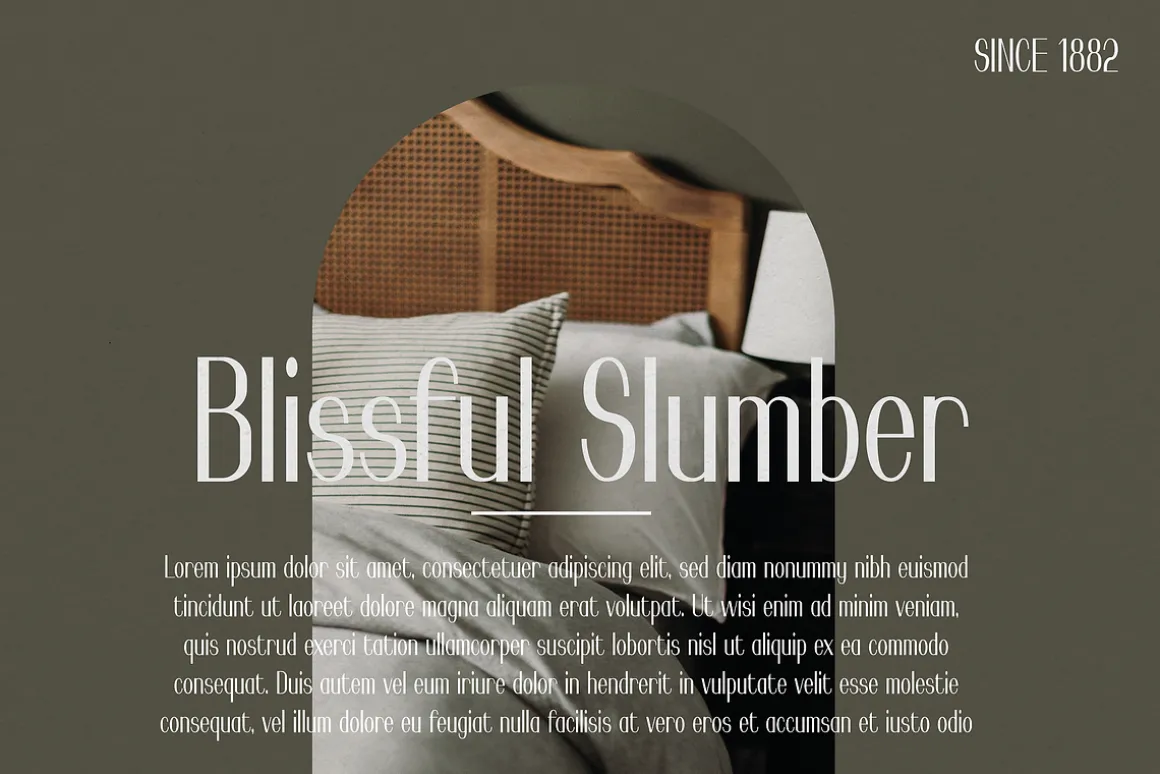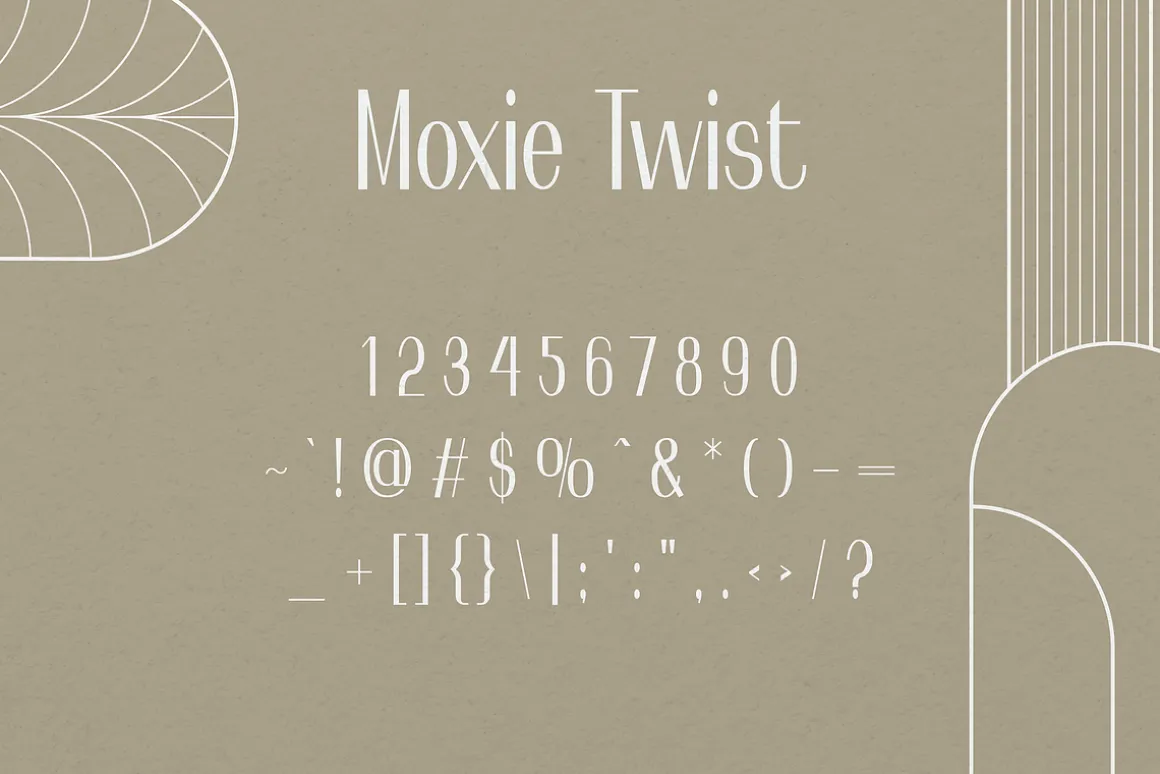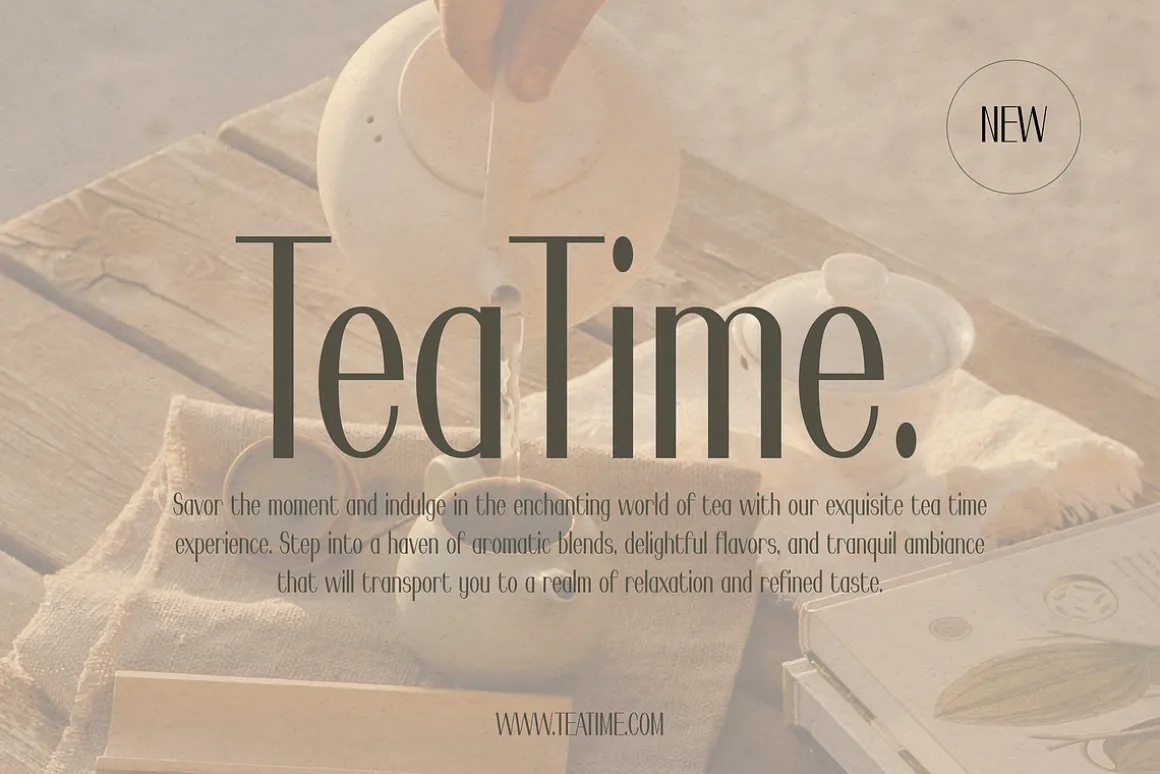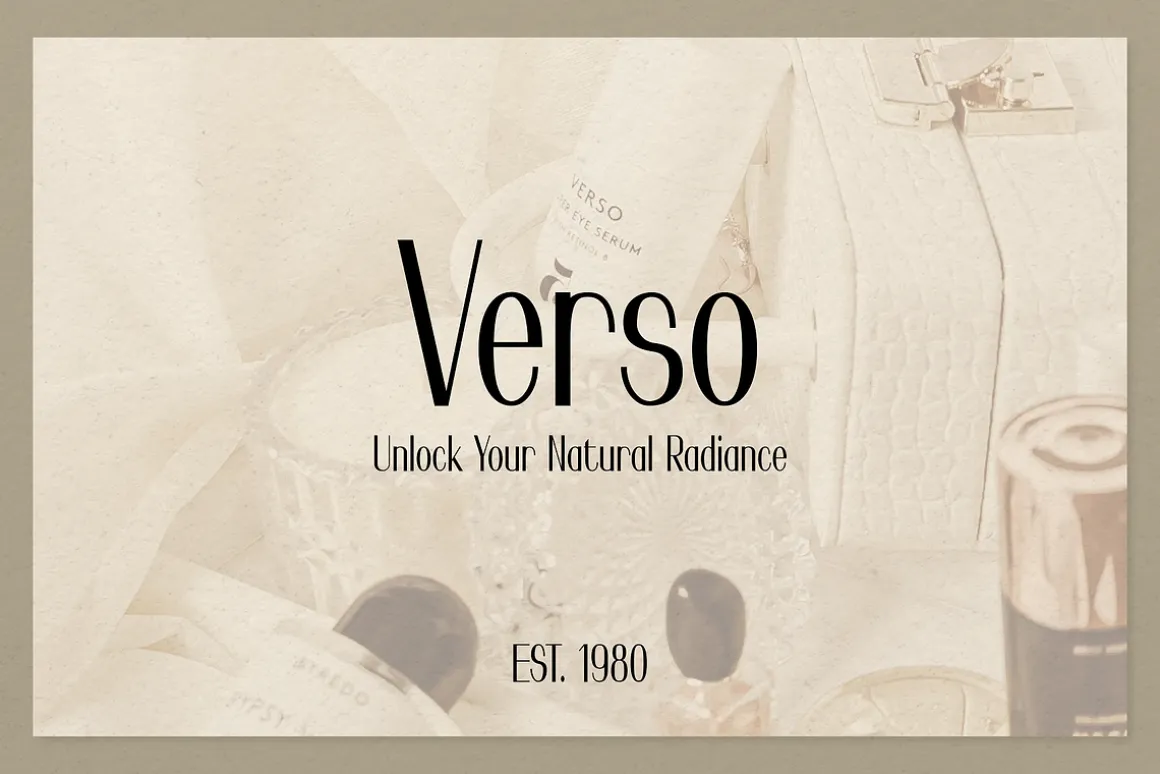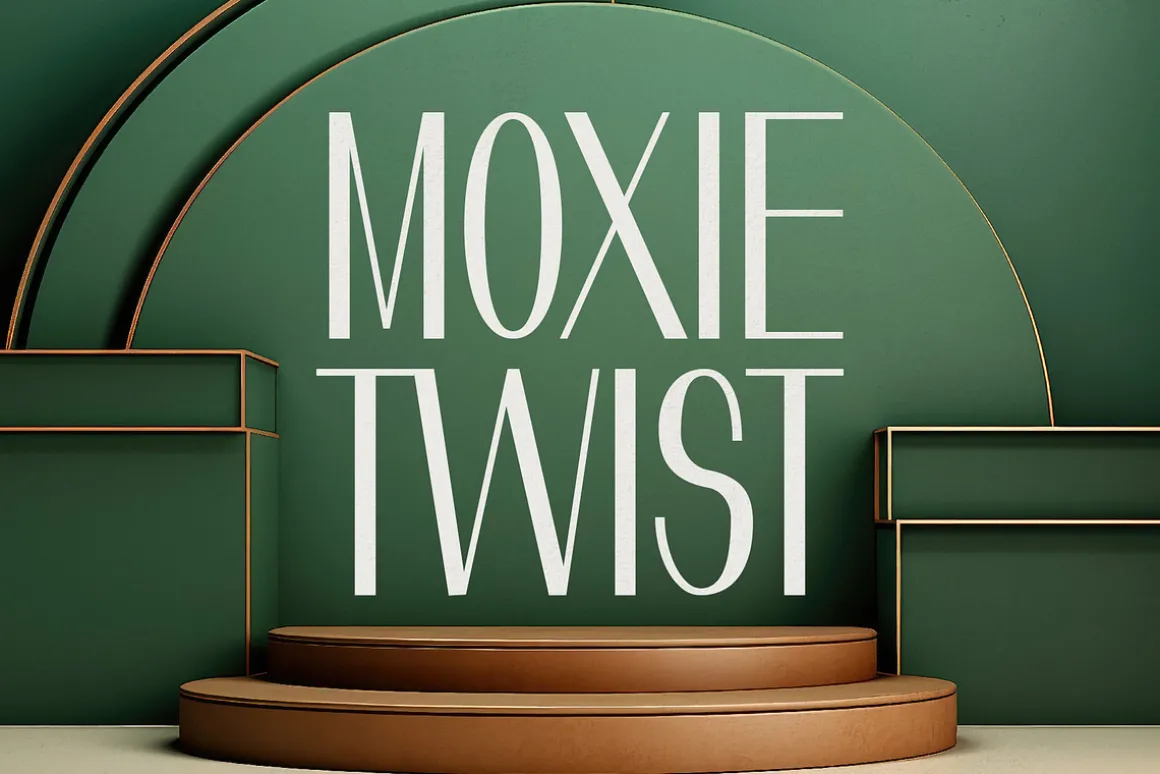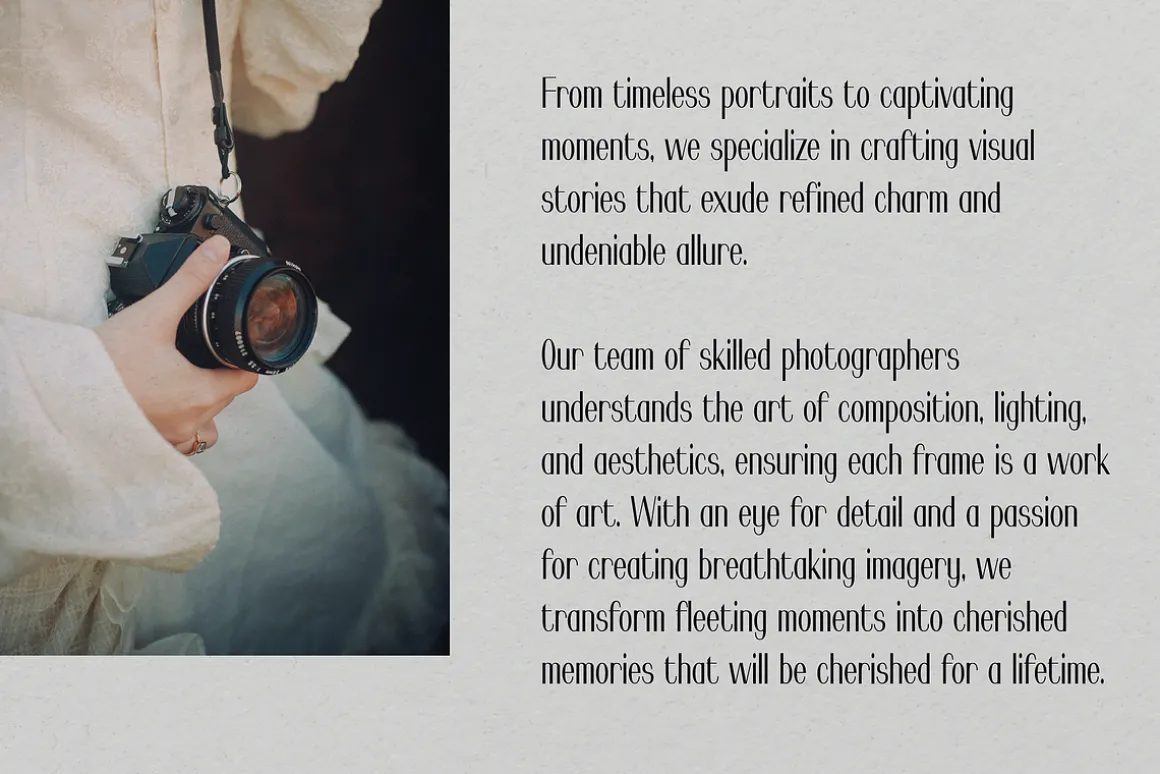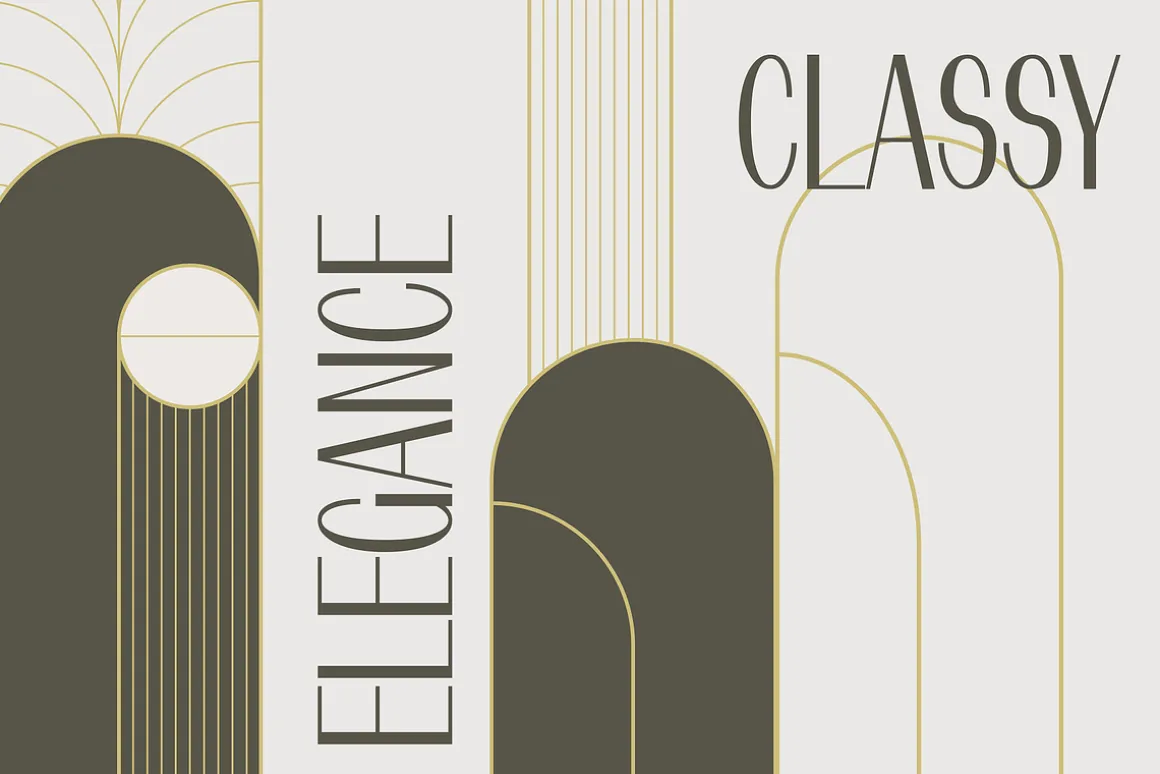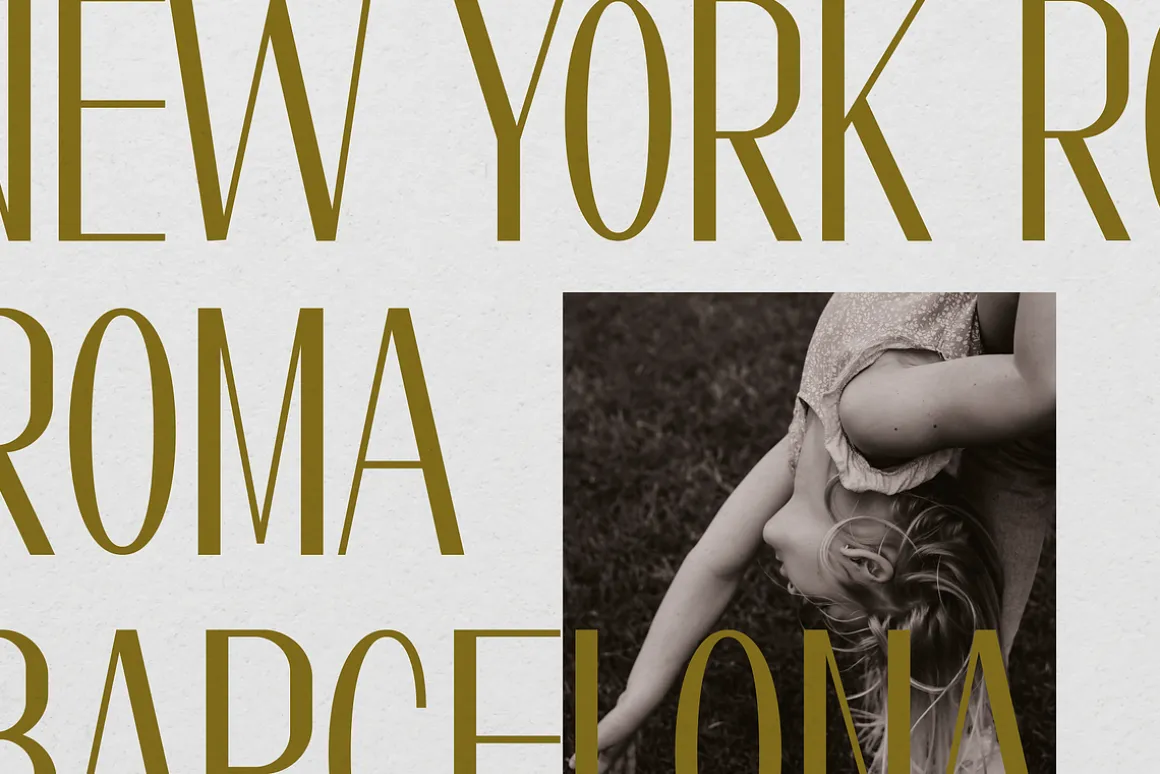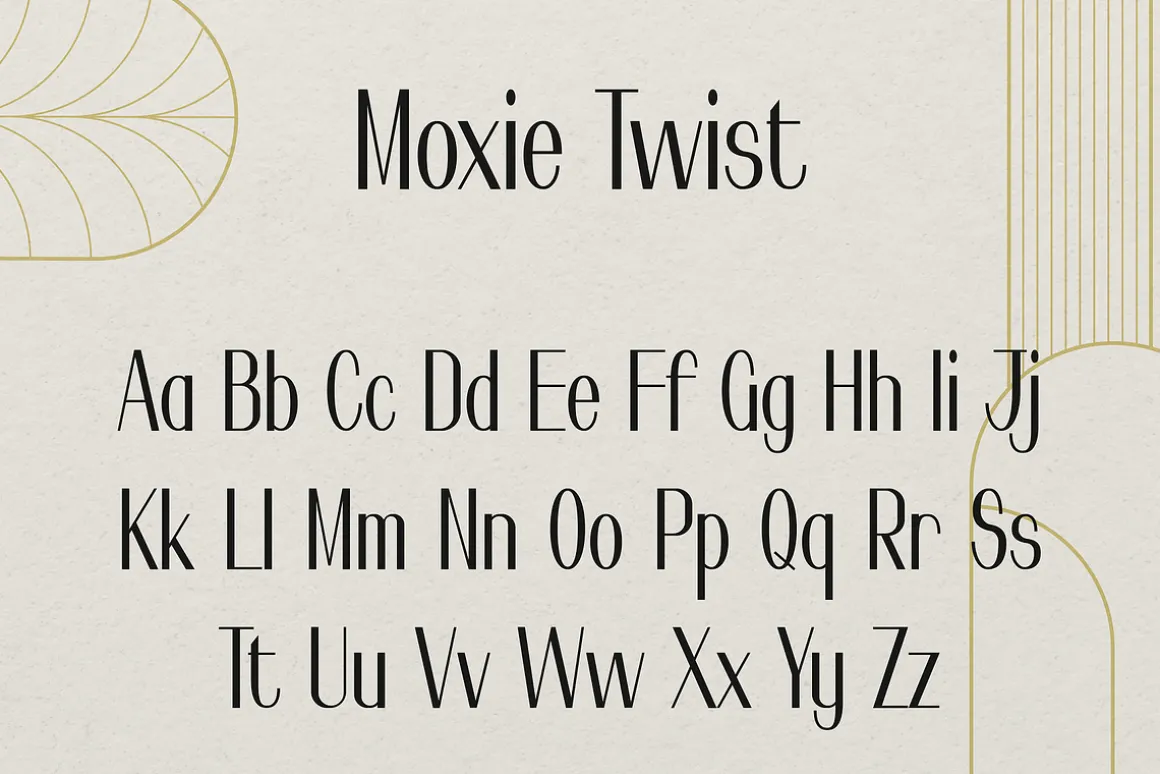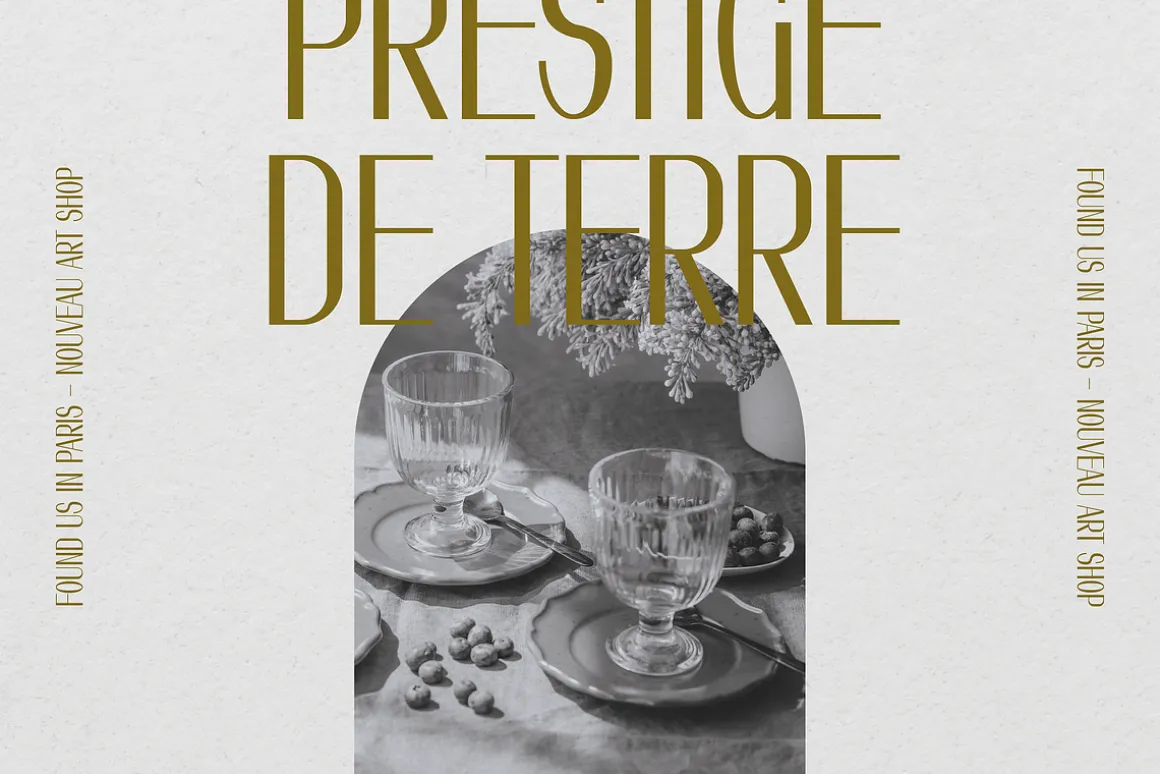
Introducing Moxie Twist, a captivating revival typeface that pays homage to the timeless elegance of 1930’s design.
Inspired by the iconic typography of the era, this font seamlessly blends nostalgia with a modern twist. With its unique flair and charming details, Moxie Twist breathes new life into vintage aesthetics, infusing your designs with a touch of sophistication and character.
Whether you’re working on branding materials, editorial layouts, or poster designs, this font will transport your audience to a bygone era while maintaining a fresh and contemporary feel.
Rediscover the spirit of the past with Moxie Twist and let it lend an air of classic elegance to your next project, adding a touch of timeless allure that is sure to captivate.